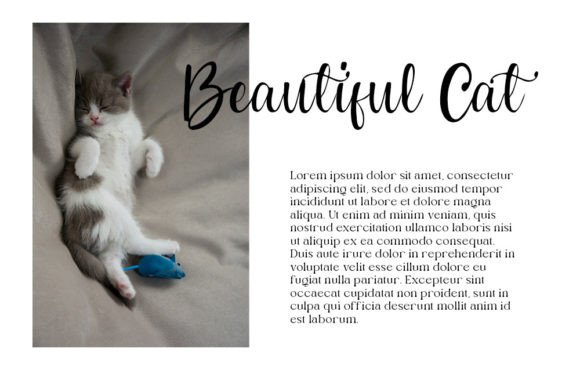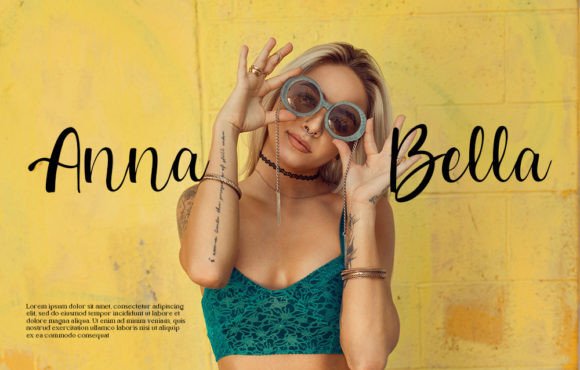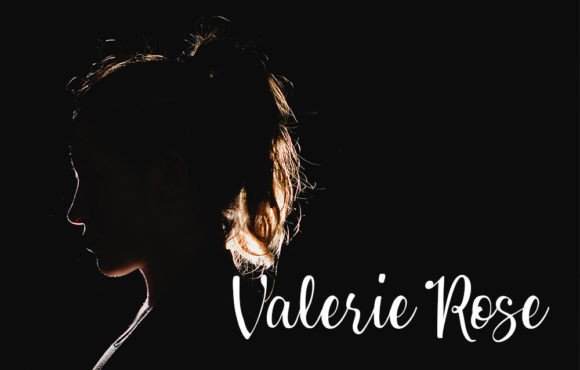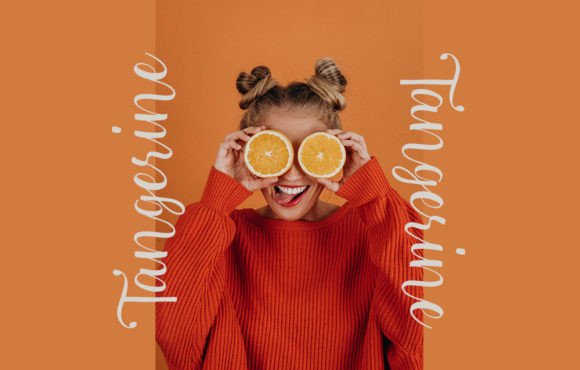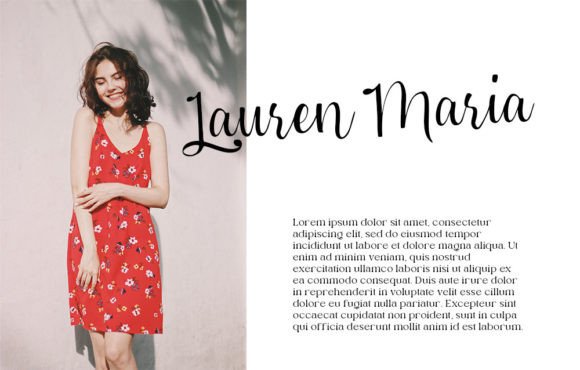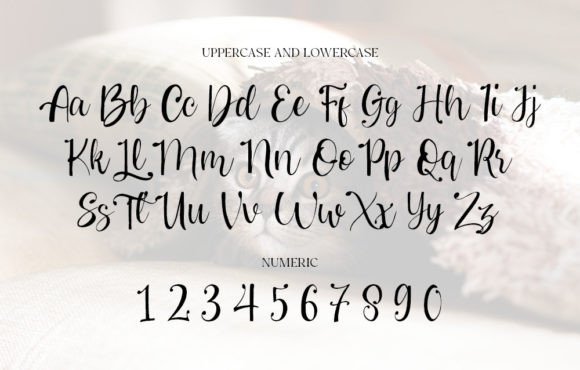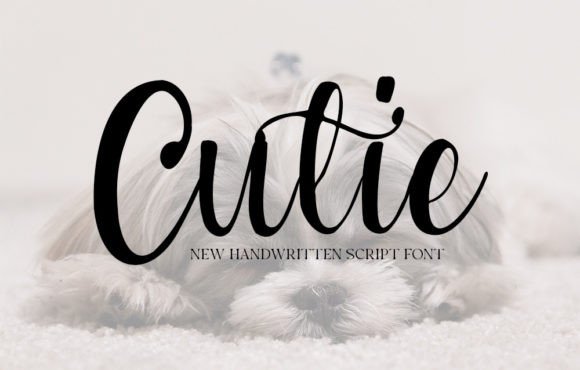
Introducing Cutie Font: The Ultimate Cursive Handwritten Font for Feminine Designs
Are you a designer or crafter looking for a font that exudes femininity and elegance? Look no further than Cutie Font, a smooth and raw cursive handwritten font that’s perfect for adding a touch of sophistication to your designs. In this article, we’ll dive into the world of Cutie Font, exploring its features, benefits, and uses, as well as provide tips on how to make the most of this gorgeous font.
What is Cutie Font?
Cutie Font is a beautiful, cursive handwritten font that’s designed to add a touch of femininity to your designs. With its smooth and raw texture, this font is perfect for creating elegant and sophisticated designs that will make your audience swoon. Whether you’re working on a branding project, a wedding invitation, or a social media graphic, Cutie Font is the perfect choice.
Key Features of Cutie Font
• Smooth and Raw Texture: Cutie Font boasts a smooth and raw texture that gives it a unique, handmade feel.
• Cursive Handwritten Style: This font features a beautiful, cursive handwritten style that’s perfect for creating elegant and sophisticated designs.
• Feminine and Elegant: Cutie Font is designed to exude femininity and elegance, making it perfect for designs that require a touch of sophistication.
• Versatile: This font is versatile and can be used in a variety of designs, from branding and advertising to wedding invitations and social media graphics.
Benefits of Using Cutie Font
So, why should you choose Cutie Font for your designs? Here are just a few benefits of using this gorgeous font:
• Adds a Touch of Femininity: Cutie Font is designed to add a touch of femininity to your designs, making it perfect for brands and businesses that want to appeal to a female audience.
• Creates Emotional Connection: The cursive handwritten style of Cutie Font creates an emotional connection with your audience, making your designs more relatable and engaging.
• Stand Out from the Crowd: With its unique texture and style, Cutie Font is sure to make your designs stand out from the crowd and grab attention.
• Easy to Read: Despite its cursive style, Cutie Font is easy to read, making it perfect for body text and headlines.
Using Cutie Font in Your Designs
So, how can you use Cutie Font in your designs? Here are a few ideas to get you started:
• Branding and Advertising: Use Cutie Font to create elegant and sophisticated branding and advertising materials, such as logos, business cards, and brochures.
• Wedding Invitations: This font is perfect for creating beautiful and elegant wedding invitations that will set the tone for the big day.
• Social Media Graphics: Use Cutie Font to create eye-catching social media graphics that will grab attention and engage your audience.
• Packaging Design: Add a touch of elegance to your packaging design with Cutie Font, perfect for luxury brands and products.
Tips for Working with Cutie Font
Here are a few tips for working with Cutie Font:
• Pair with Bold Fonts: Pair Cutie Font with bold fonts to create contrast and visual interest.
• Use in Headlines and Titles: Use Cutie Font in headlines and titles to add a touch of elegance and sophistication.
• Experiment with Colors: Experiment with different colors to find the perfect combination that complements your design.
• Keep it Simple: Keep your design simple and clean to let Cutie Font shine.
In conclusion, Cutie Font is a beautiful and elegant cursive handwritten font that’s perfect for designers and crafters looking to add a touch of femininity to their designs. With its smooth and raw texture, versatile style, and easy-to-read format, Cutie Font is sure to become a favorite in your design arsenal. So why wait? Try Cutie Font today and see how it can elevate your designs to the next level!